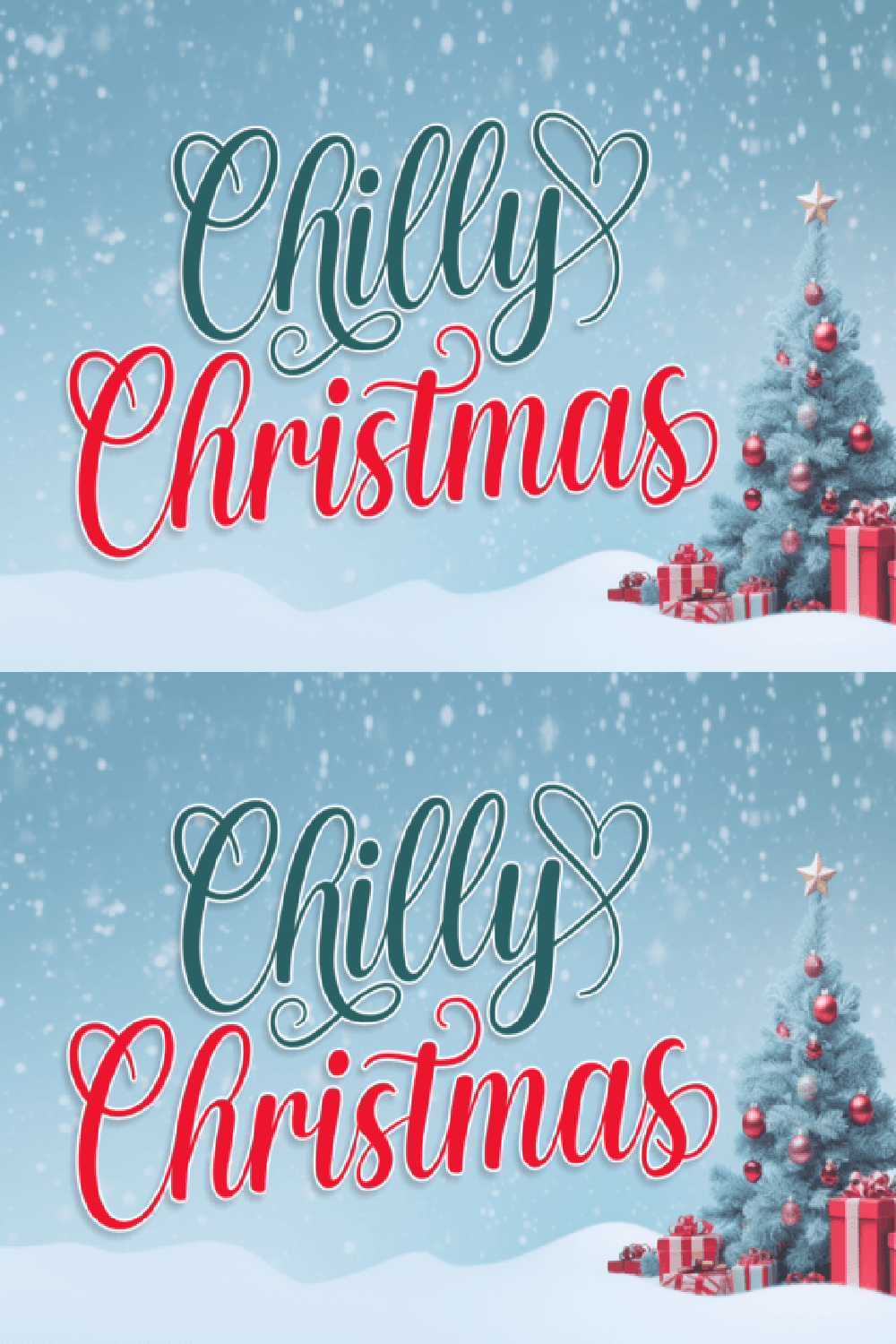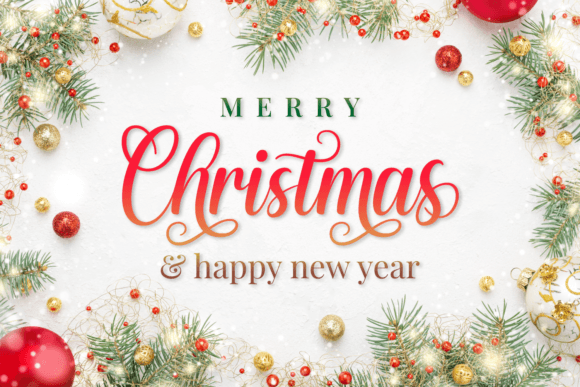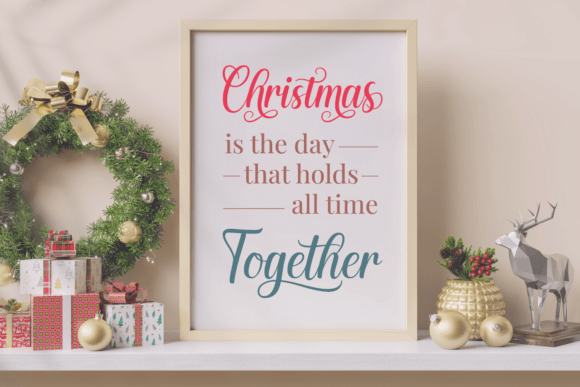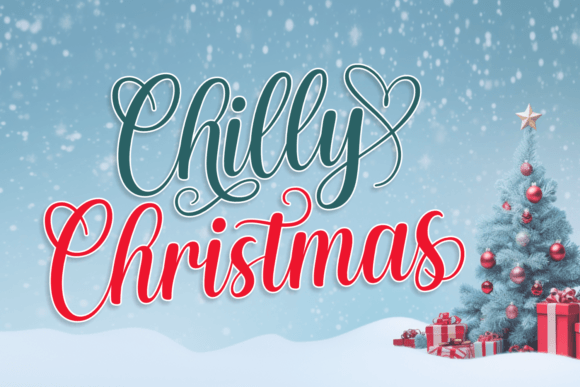
Chilly Christmas Font: A Playful Handwritten Script for Holiday Cheer
About the Chilly Christmas Font
We are excited to introduce Chilly Christmas Font, a must-have typeface for any serious designer. Chilly Christmas is a playful handwritten font with fancy swashes, perfect for adding a touch of festive cheer to your holiday projects. Its whimsical style captures the joyful spirit of Christmas, making it ideal for greeting cards, invitations, and seasonal designs. Spread warmth and merriment with Chilly Christmas, a delightful font that brings a dash of holiday magic to your creative endeavors.